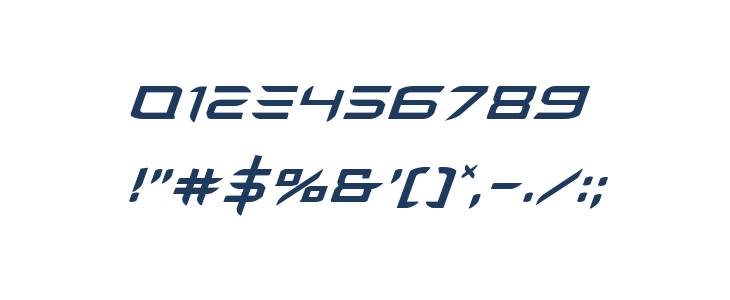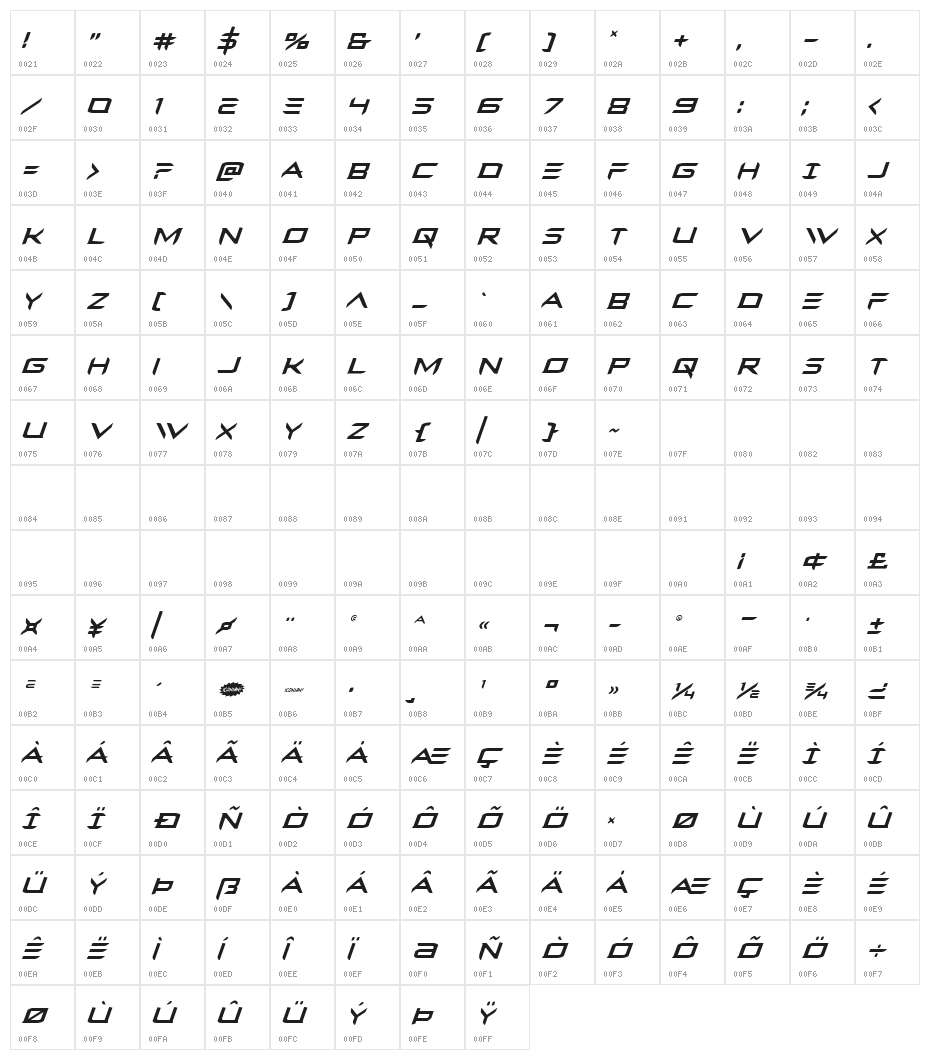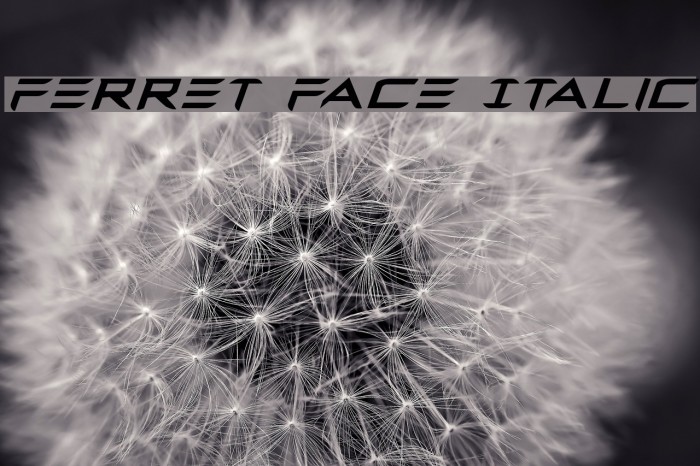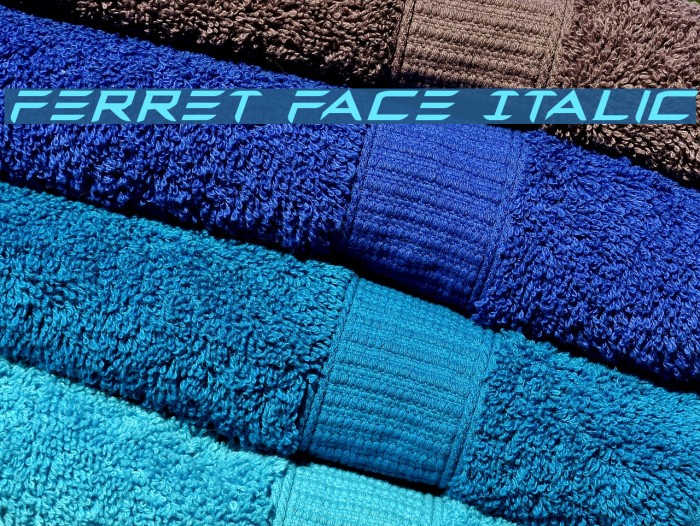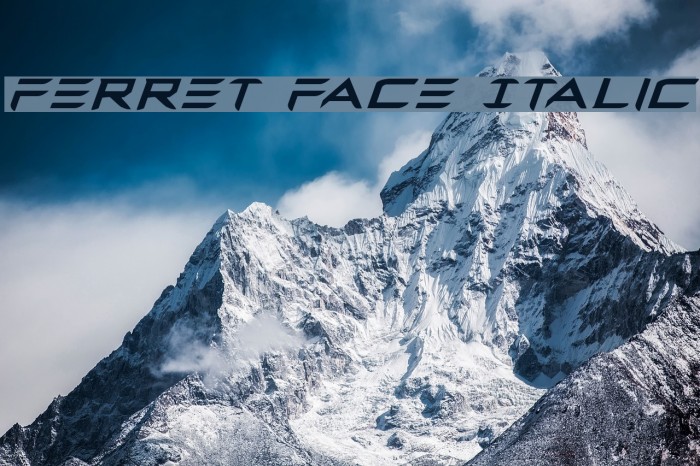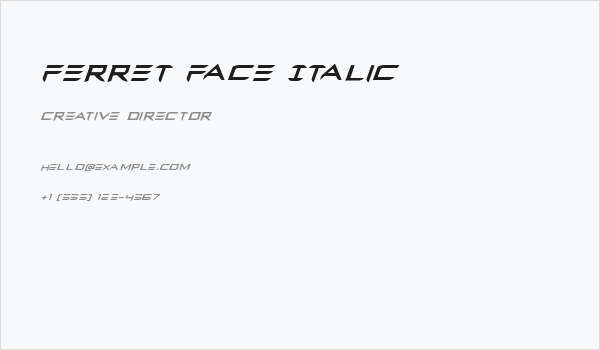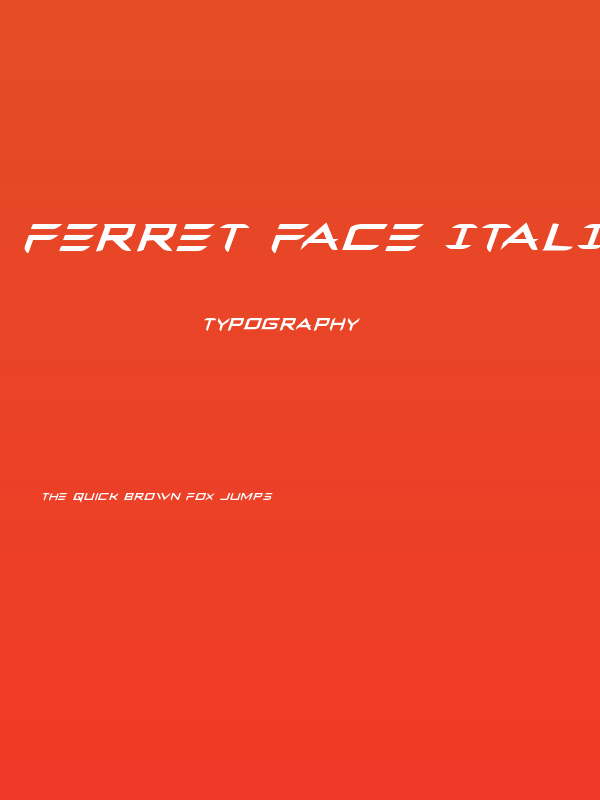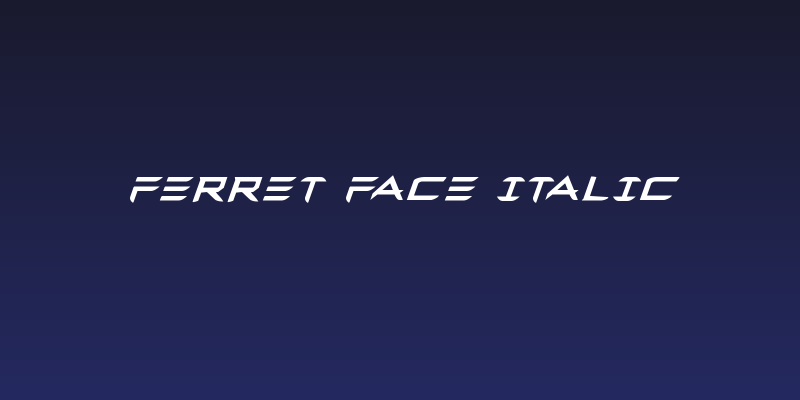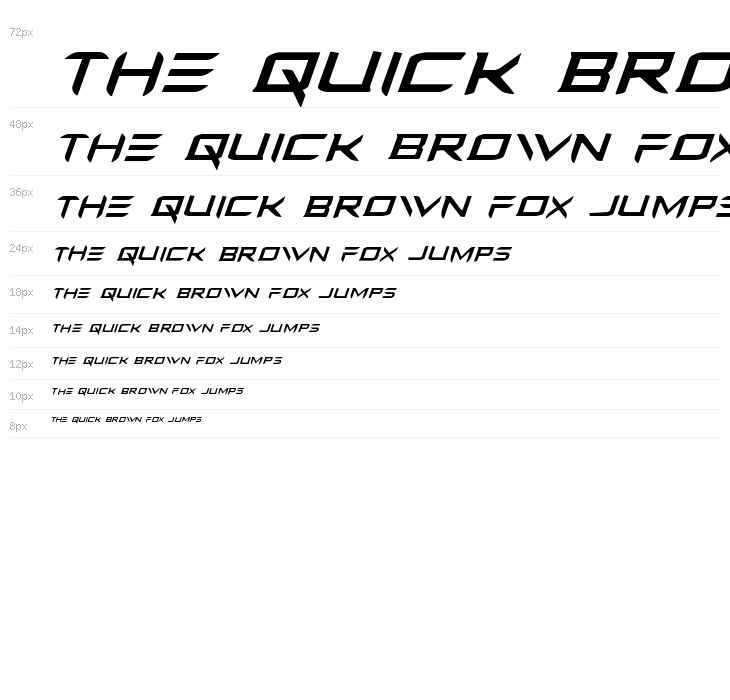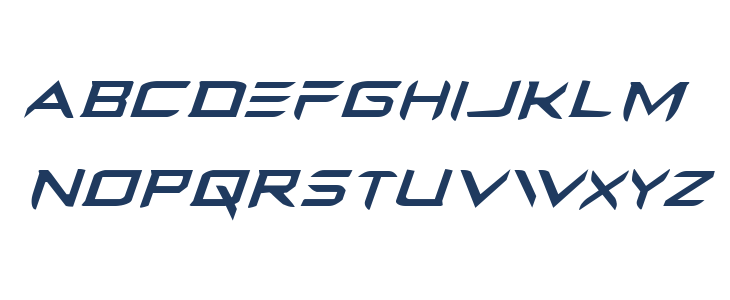
Ferret Face Italic Font
Ferret Face Italic Description
This font features a dynamic and angular design, characterized by sharp edges and a forward-leaning italic style. The uppercase letters exhibit a futuristic and sleek appearance, with distinct geometric shapes that convey a sense of speed and modernity. The lowercase letters maintain the same angular aesthetic, ensuring consistency across the typeface. Numbers are bold and maintain the same sharp, angular design, making them easily readable. Special characters are crafted with the same attention to detail, ensuring they fit seamlessly with the rest of the font. Overall, this font exudes a sense of energy and movement, making it ideal for projects that require a modern and edgy look.
| Use Case | Logos, Headlines, Branding |
| Proposed Projects | Ideal for branding, sports team logos, video game titles, and tech-related projects. |